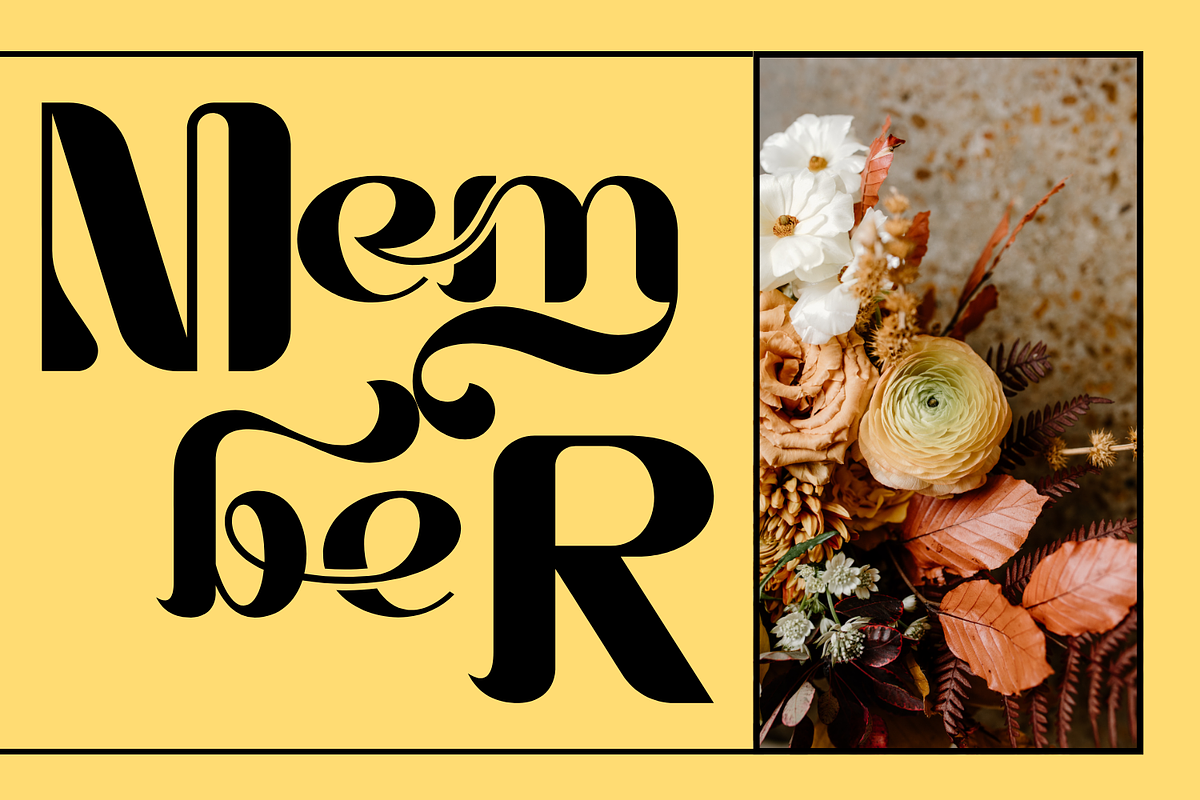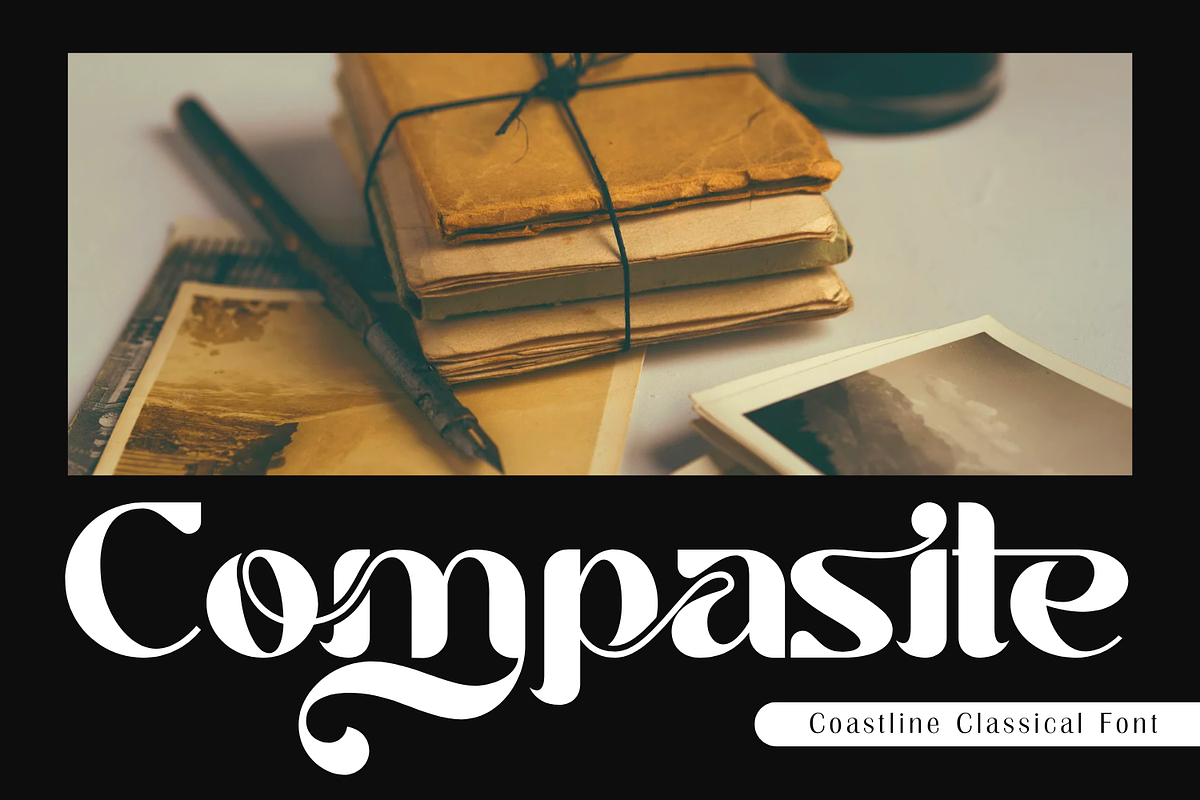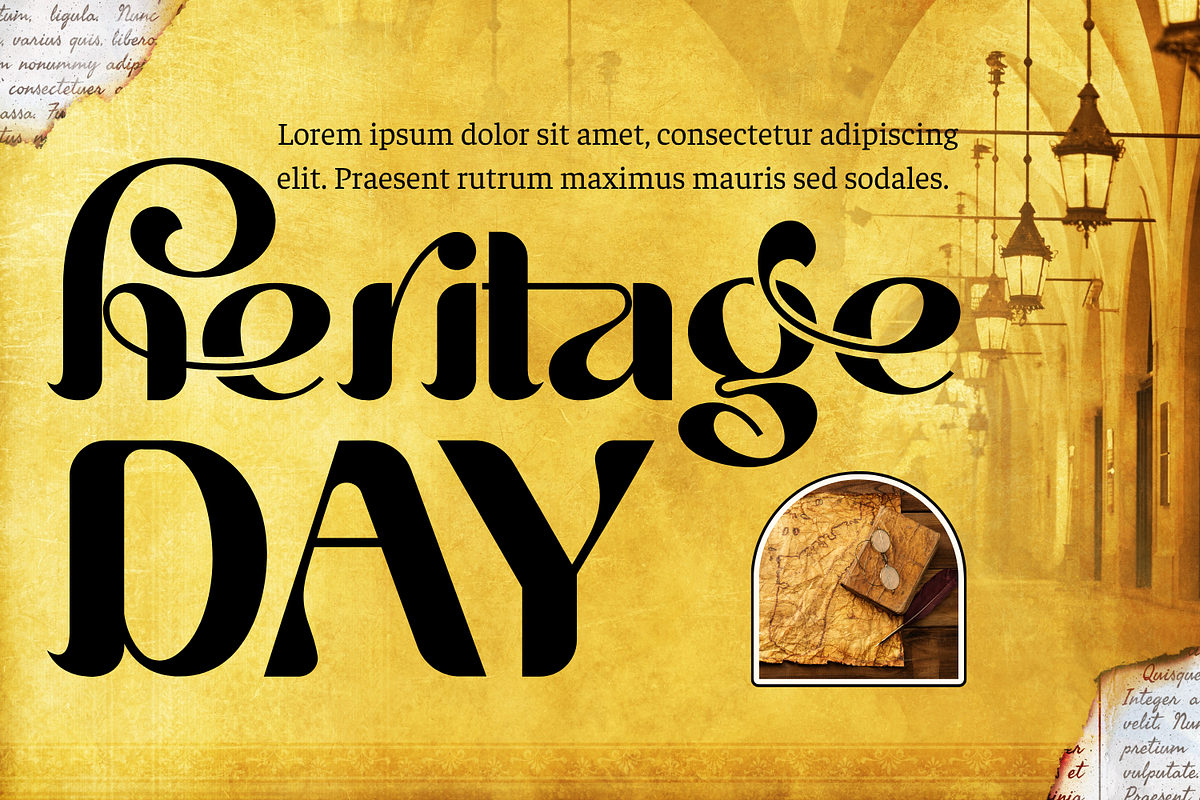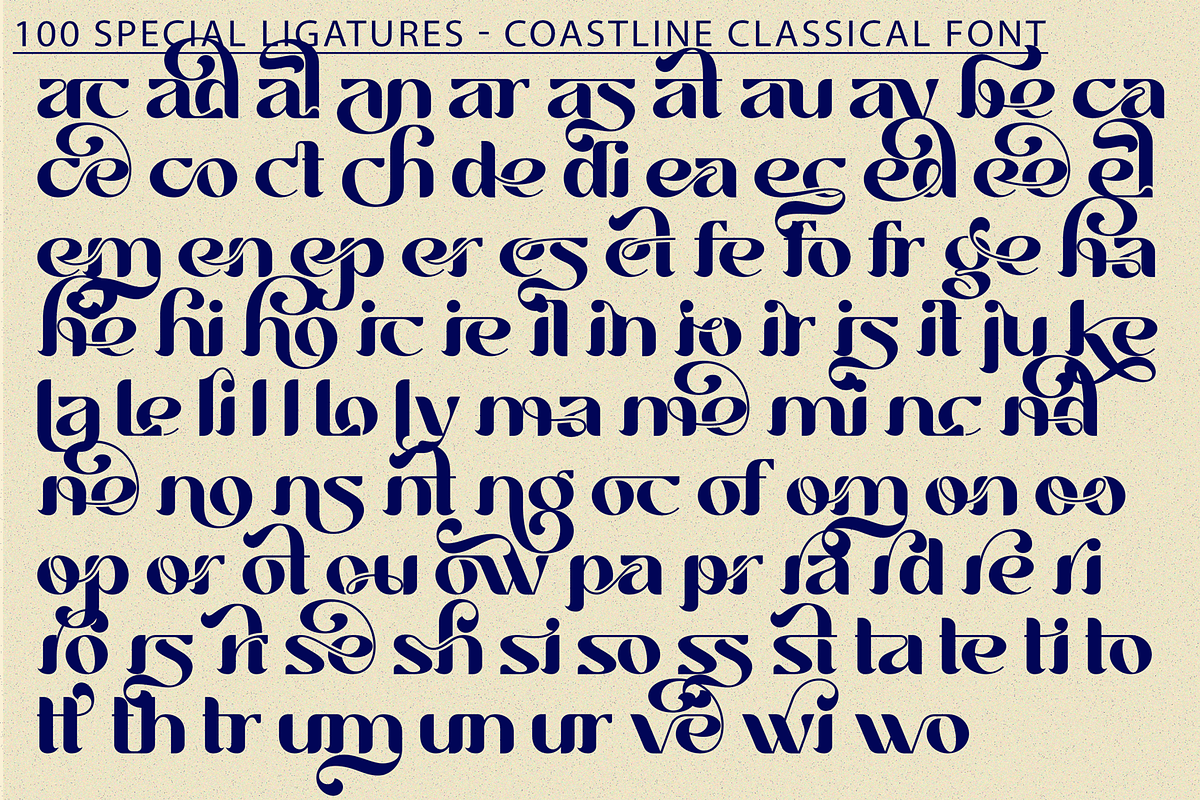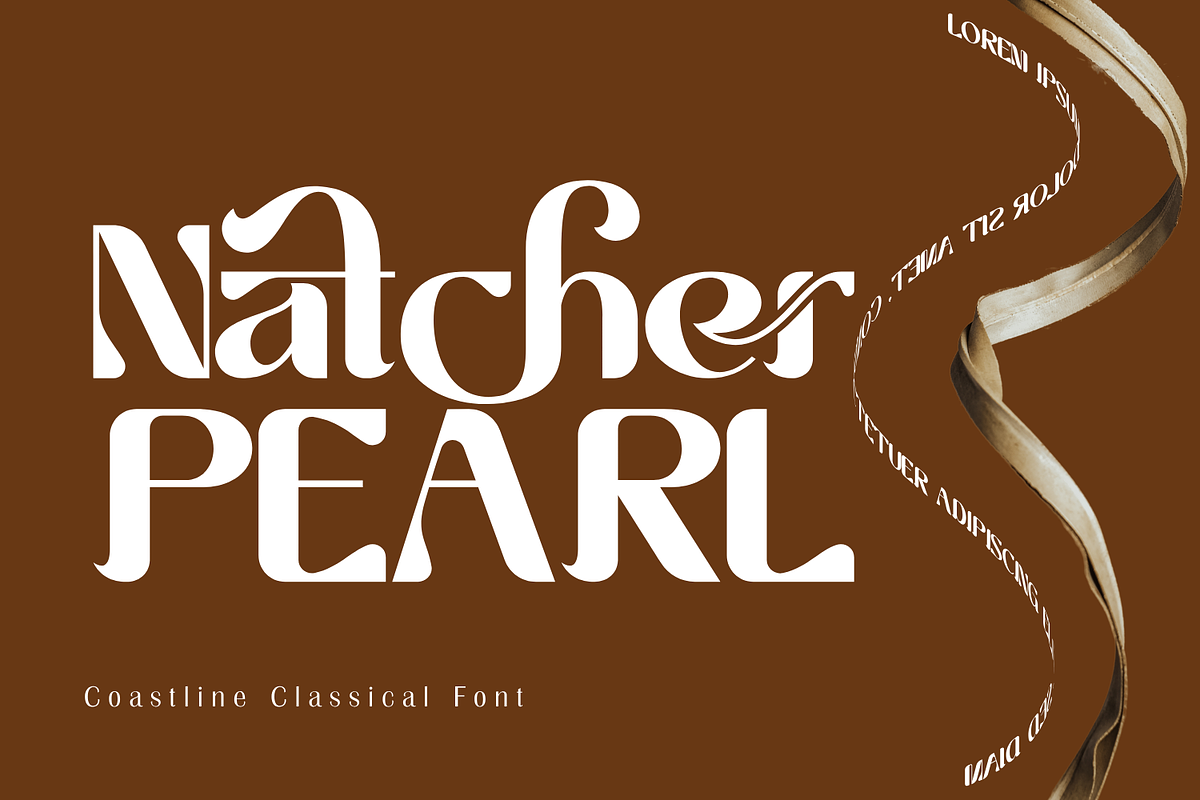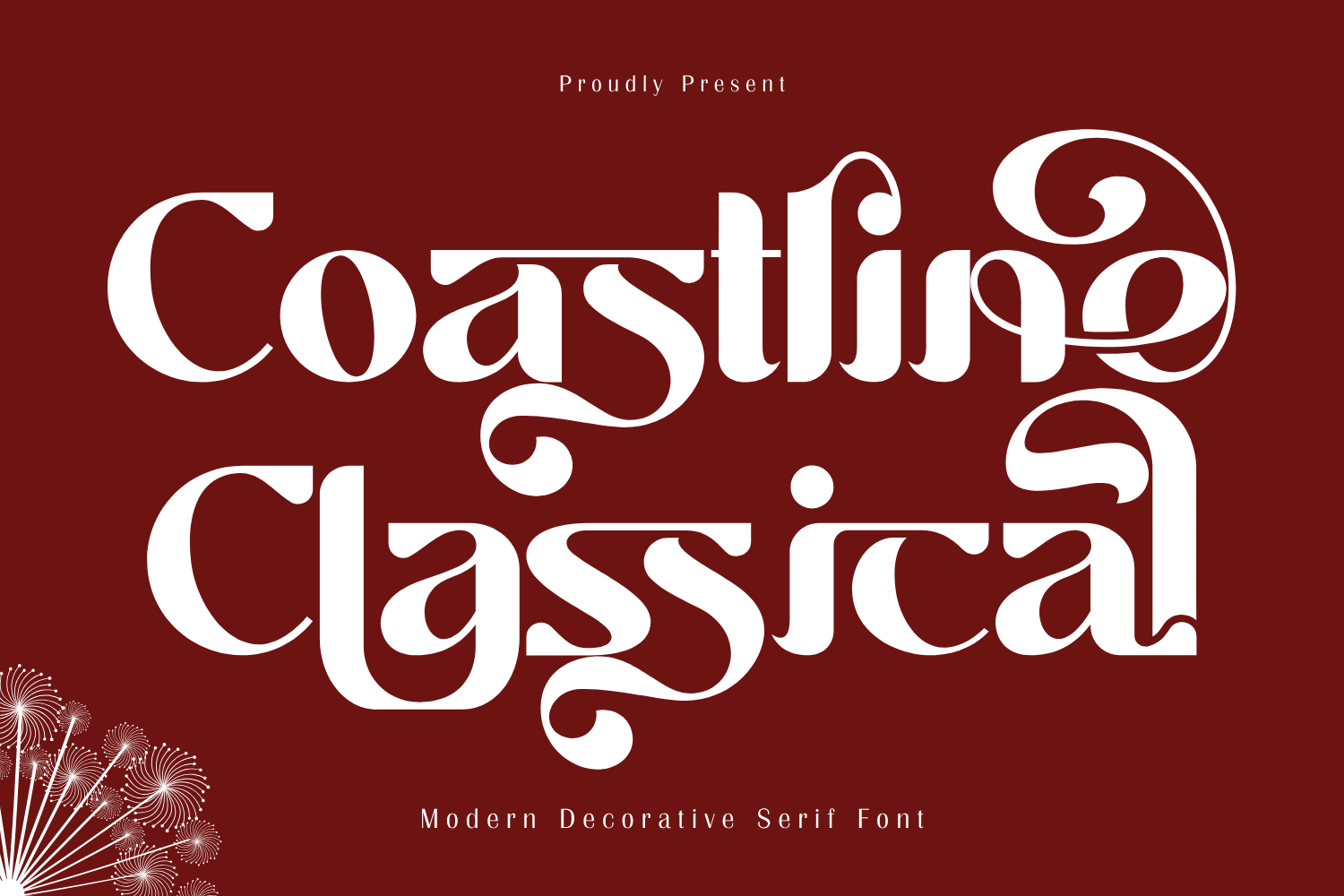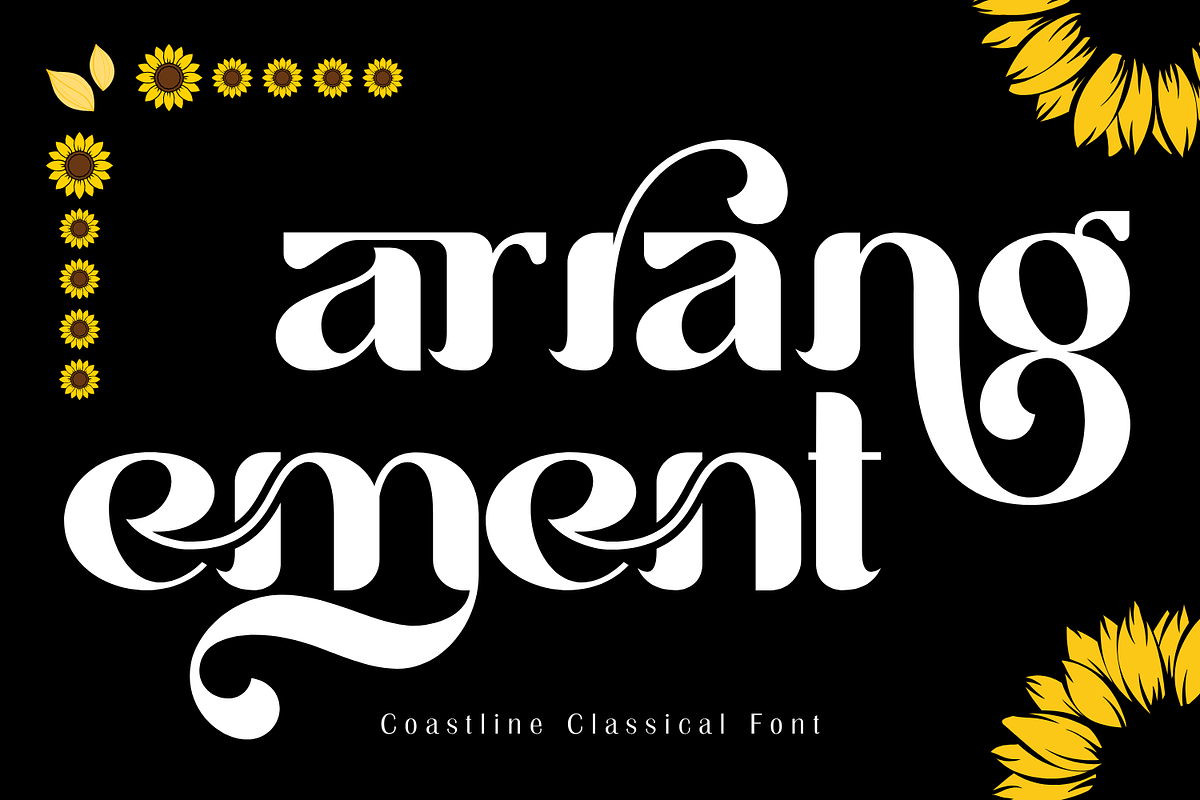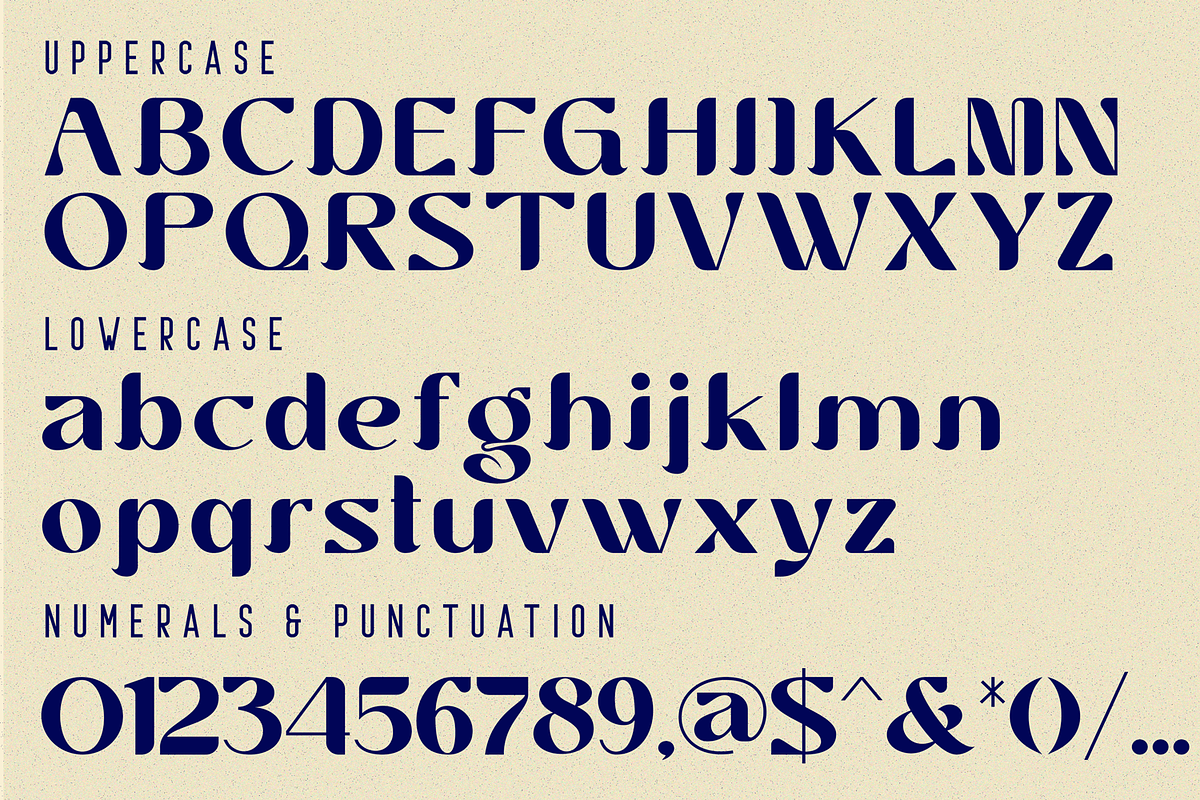
Coastline Classical Font
Coastline Classical Font is a highly expressive display serif font that blends classical charm with modern flourish. Inspired by baroque calligraphy and decorative Victorian typography, this font was crafted for bold statements and sophisticated branding. With its flowing swashes, high-contrast strokes, and dramatic ligatures, Coastline Classical adds flair and elegance to headlines, packaging, posters, and editorial layouts. Each character is thoughtfully designed to bring movement and personality to your typography, making it ideal for projects that demand both tradition and creativity.
Uppercase & Lowercase letters
100+ Special Ligatures
🔤 About 100 ligatures combined with Stylistic Alternates Font:
ac ad al an ar as at au av be ca ce ch co ct de di ea ec ed ee el em en ep er es et fe fo fr ge ha he hi ho ie ic il in io ir is it ju ke la le li ll lo ly ma me mi nc nd ne ng no nt ns oc of om on oo op or ot ou ow pa pr ra rd re ri ro rs rt se sh si so ss st ta te th ti to tr tt um un ur ve wi wo